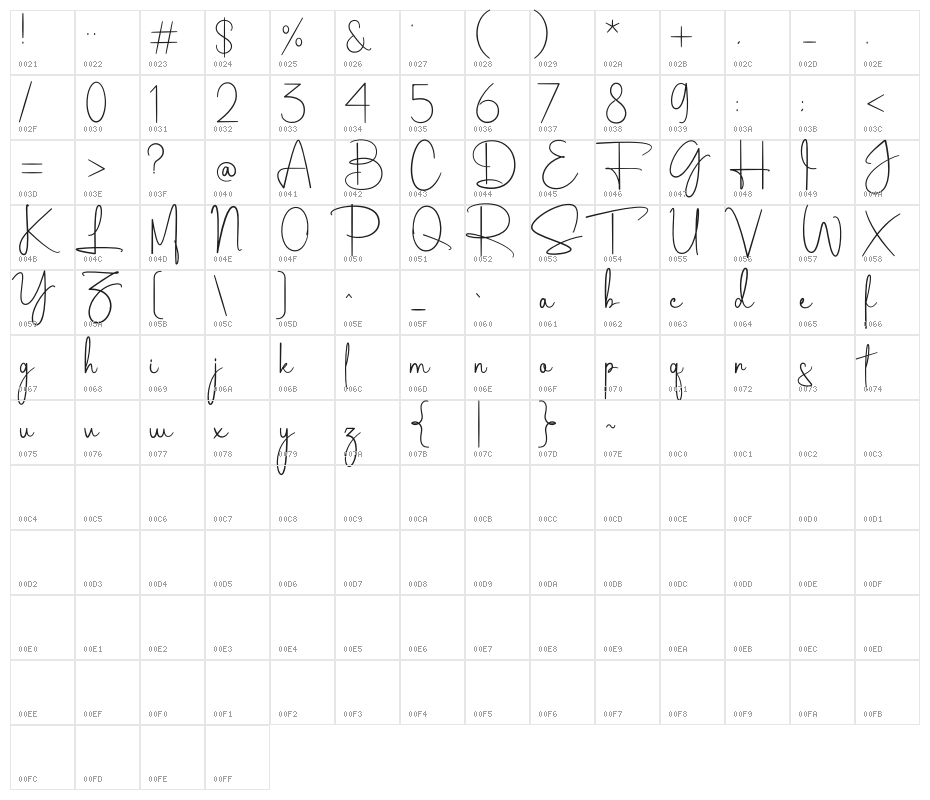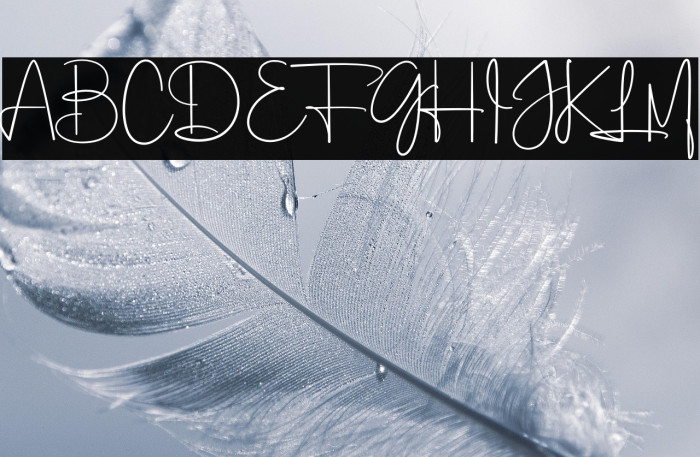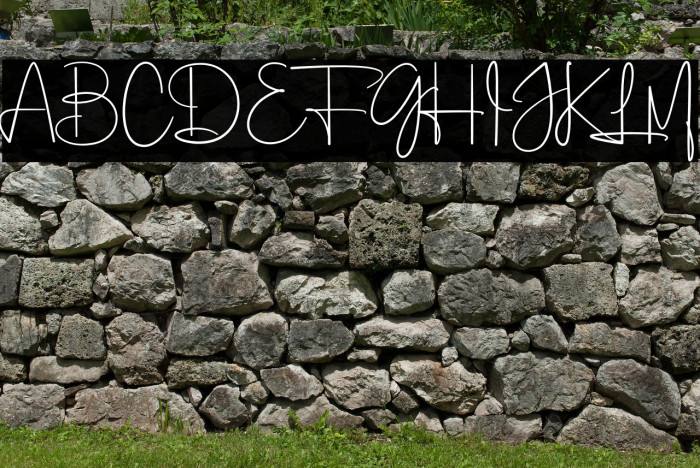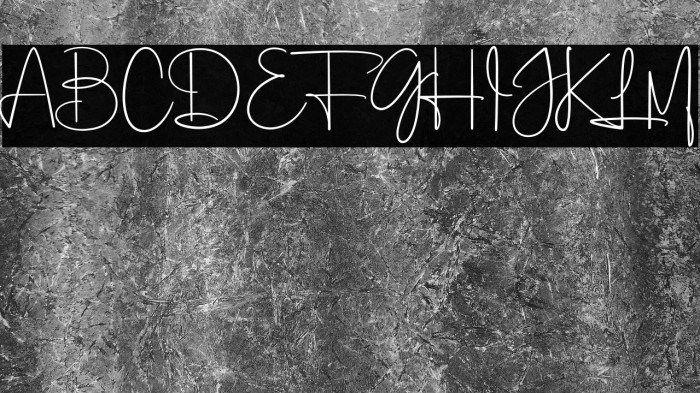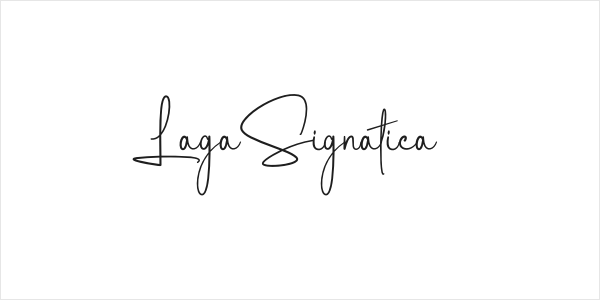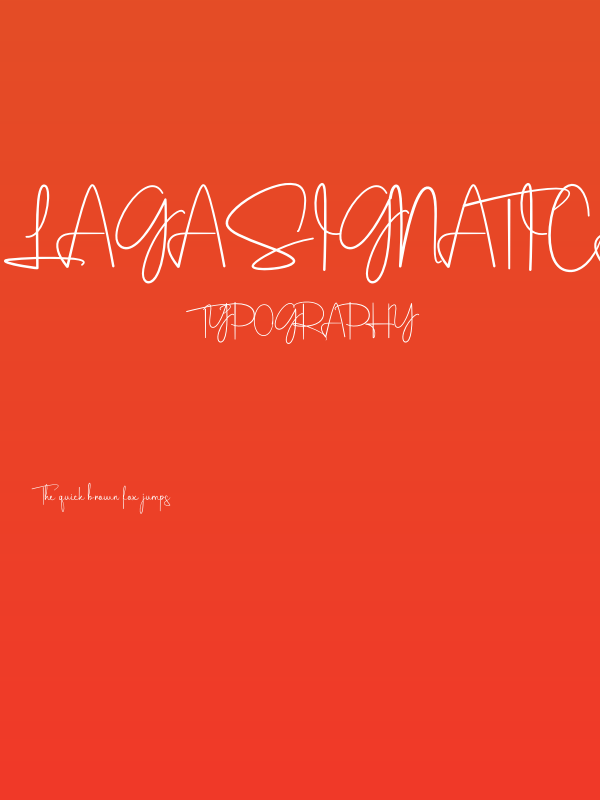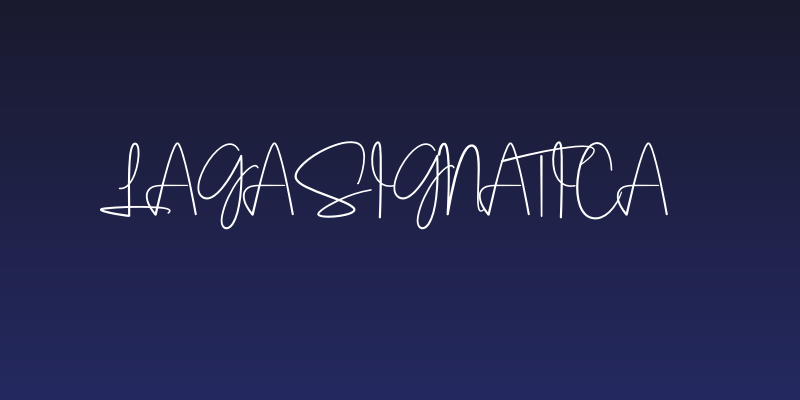
Laga Signatica Font
Laga Signatica Description
This font features a unique and artistic handwritten style, characterized by its flowing and interconnected letterforms. The uppercase letters exhibit a playful and whimsical quality, with varying line thickness that adds a dynamic feel. The lowercase letters maintain a consistent style, complementing the uppercase with their elegant curves and loops. Numbers and special characters are designed with the same artistic flair, ensuring a cohesive look throughout. The overall appearance is both modern and expressive, making it suitable for creative and informal applications.
| Overall Style | Modern, Decorative |
| Use Case | Logos, Headlines, Artistic projects |
| Proposed Projects | Ideal for creative projects such as greeting cards, invitations, personal branding, and artistic posters. |